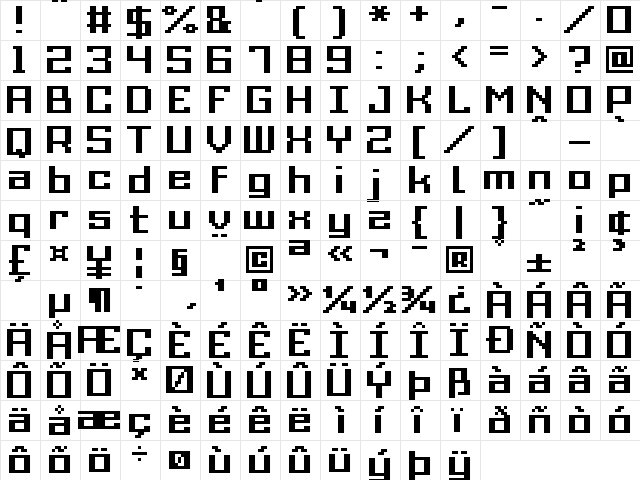
Grixel Acme 9 Regular Bold Xtnd Regular
Design Context for Grixel Acme 9 Regular Bold Xtnd Typeface
Grixel Acme 9 Regular Bold Xtnd offers clean, dependable letterforms without strong stylistic allegiance, making it a practical choice for designers who need flexibility. The heavy weight commands attention and anchors typographic hierarchies.